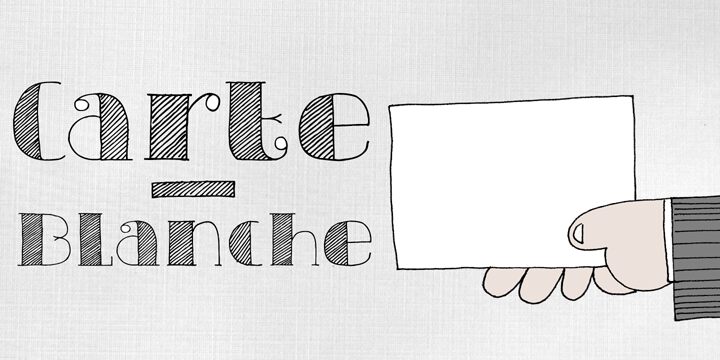
DK Carte Blanche by David Kerkhoff is a free old-school decorative display font with towering letters, fine hairlines, and broad strokes filled with diagonal hatching. Small curls and wandering curves give it a mischievous elegance.
On confectionery packaging, its striped fills can echo engraved labels and turn a product name into part of the illustration. Book covers and theater posters can use the tall, eccentric forms to suggest a curious Victorian sideshow or storybook world. The looping ornaments also suit invitations for cabaret, circus, and other events with a knowingly theatrical theme.